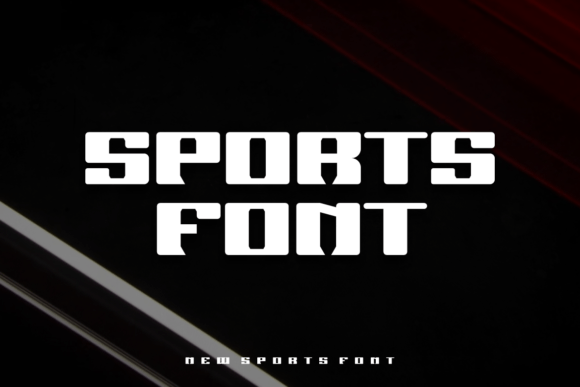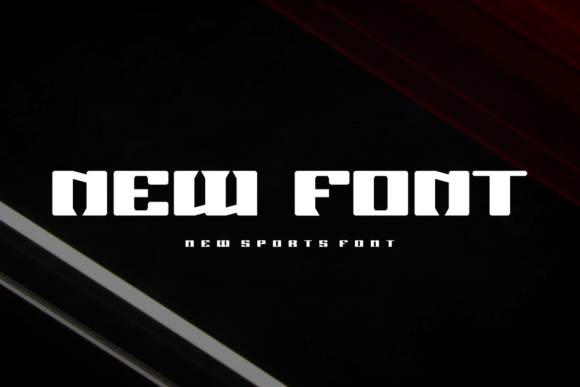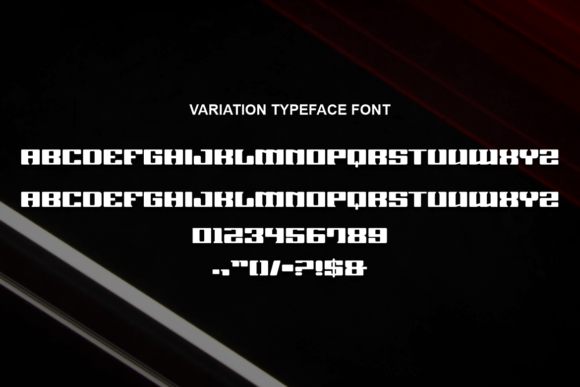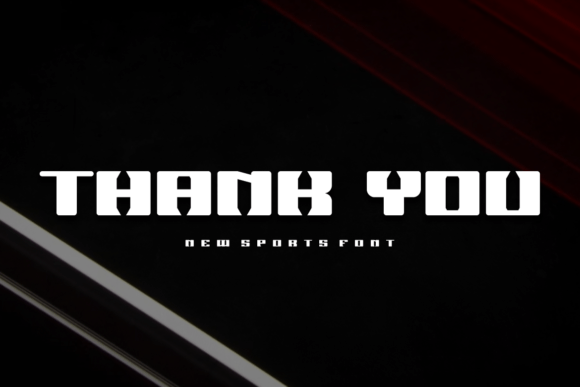
Introduction to Derico Font
Have you ever found yourself staring at a blank page, eager to bring your creative vision to life, only to be held back by the limitations of your font choices? The frustration is real, but what if I told you there’s a solution that could elevate your design game and make your creative projects shine? Enter Derico Font, a stunning display font that’s about to become your new best friend.
As a designer, you understand the importance of having a high-quality font that can bring your ideas to the forefront. Derico Font is a game-changer, offering a unique blend of style and sophistication that’s perfect for any creative project. With its transparent background and sleek design, this font is a valuable design resource that’s sure to impress. And the best part? You can download it for free, making it an accessible and affordable addition to your design arsenal.
Derico Font
- High-quality, professional font ideal for creative projects and design resources.
- Unique characteristics: modern, elegant design with a touch of sophistication, making it perfect for corporate and luxury brand identities.
Honest Review: Derico Font
As a designer, I’m always on the lookout for high-quality design resources to elevate my creative projects. I recently came across the Derico Font, and I was intrigued by its unique features. In this review, I’ll share my honest thoughts on what works well and what could be improved.
- The Derico Font has a clean and modern aesthetic that makes it perfect for digital designs.
- The font’s limited character set might be a drawback for designers working on complex projects.
- The font’s versatility could be improved with more variations and styles.
Overall, the Derico Font is a solid design resource that can add a touch of elegance to your creative project. While it may have some limitations, its high-quality design and free download option make it a great choice for designers looking to elevate their work.
Derico Font